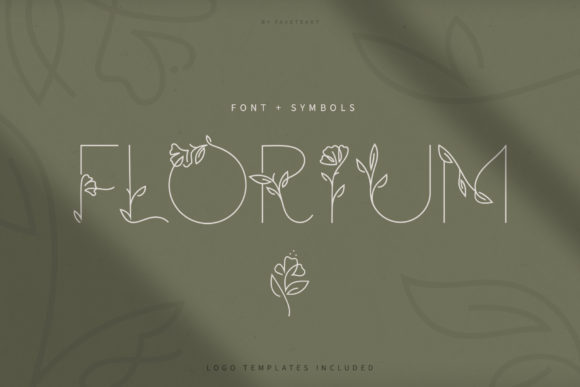
Introducing Florium Font: Elevate Your Designs with Elegant Floral Flair
Are you a creative mind looking for the perfect font to add a touch of elegance and whimsy to your designs? Look no further than Florium Font, a stunning duo font that combines decorative and dingbats elements to bring your projects to life. In this article, we’ll dive into the world of Florium Font, exploring its features, benefits, and uses, and why it’s a must-have for designers, crafters, and floral enthusiasts alike.
The Beauty of Florium Font
Florium Font is a masterful creation, designed to infuse your designs with a sense of style and sophistication. This beautiful font duo consists of elegant, stylish characters adorned with intricate floral decorations, making it the perfect choice for a wide range of creative projects. Whether you’re working on a floral-themed design, a wedding invitation, or a brand identity, Florium Font is sure to impress.
Key Features of Florium Font
- Decorative and Dingbats Duo: Florium Font offers a unique combination of decorative and dingbats elements, providing you with a vast array of creative possibilities.
- Elegant and Stylish Characters: The font features beautifully crafted characters that exude elegance and sophistication, perfect for adding a touch of refinement to your designs.
- Floral Decorations: The font is adorned with intricate floral decorations, making it an ideal choice for floral-themed projects, wedding designs, and more.
- Versatile: Florium Font can be used for a wide range of design applications, from digital projects to print materials.
Why Choose Florium Font?
With so many fonts available, why choose Florium Font? Here are just a few reasons why this font duo stands out:
- Unique and Eye-Catching: Florium Font is sure to grab attention with its distinctive and stylish characters, setting your designs apart from the rest.
- Time-Saving: With Florium Font, you can add a touch of elegance and sophistication to your designs in no time, saving you hours of design work.
- High-Quality: Florium Font is a high-quality font duo, carefully crafted to ensure that your designs look professional and polished.
Florium Font is a dream come true for designers and crafters who love working with floral themes. Here are just a few ways you can use this beautiful font:
- Wedding Designs: Create stunning wedding invitations, stationery, and decorations with Florium Font.
- Floral-themed Designs: Add a touch of elegance to your floral-themed designs, from packaging to branding.
- Digital Projects: Use Florium Font to create eye-catching digital projects, such as social media graphics, blog headers, and more.
- Print Materials: Add a touch of sophistication to your print materials, including business cards, brochures, and flyers.
Tips for Using Florium Font
To get the most out of Florium Font, here are a few tips to keep in mind:
- Experiment with Pairings: Try pairing Florium Font with other fonts to create a unique and eye-catching look.
- Play with Size and Color: Experiment with different sizes and colors to add depth and interest to your designs.
- Use Dingbats Creatively: Use the dingbats elements to add a touch of whimsy and personality to your designs.
Florium Font is a truly special font duo that is sure to elevate your designs and bring a touch of elegance and sophistication to your projects. With its beautiful characters, intricate floral decorations, and versatility, it’s the perfect choice for designers, crafters, and floral enthusiasts alike. Whether you’re working on a wedding design, a floral-themed project, or a digital design, Florium Font is sure to impress. So why wait? Download Florium Font today and start creating stunning designs that will leave a lasting impression!